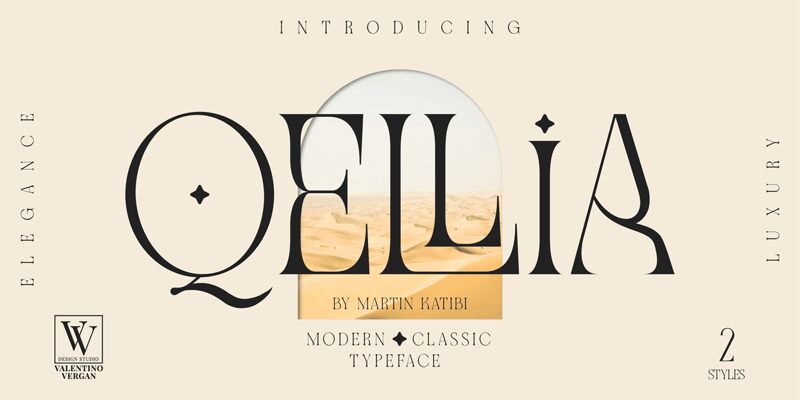
Qellia is the epitome of modern elegance and style. Designed by Valentino Vergan, this serif font exudes sophistication with its semi-light weight and tall, slim nature. Its exquisite ligatures and unique alternate characters add a touch of creativity to any project.Perfect for creating custom modern feminine logo designs, Qellia's creative ligatures and alternative characters make it ideal for branding projects. Its versatility extends beyond logos to include mastheads, magazines, and even wedding invitations.
The font's contemporary nostalgic look adds a touch of class to Instagram posts, websites, blog posts, and pull quotes. Qellia's multilingual support makes it accessible for various languages including Danish, English, Finnish, French, German (Switzerland), Norwegian Bokml and Nynorsk, Portuguese, Spanish, Swedish, and Swiss German. This wide range of language compatibility allows the font to be used in diverse projects across different countries.
With its unique design and timeless appeal, the Qellia typeface has limitless potential for various applications. It can be used in product packaging to create eye-catching labels or in trendy social media posts to capture attention. Its elegant yet modern aesthetic makes it suitable for advertisements that aim to leave a lasting impression on viewers.
In summary, Qellia is a versatile typeface that suits an array of projects thanks to its semi-light weight serif style. Whether you're working on branding materials or creating visually stunning social media content or editorials - Qellia will elevate your design with its elegance and creativity.